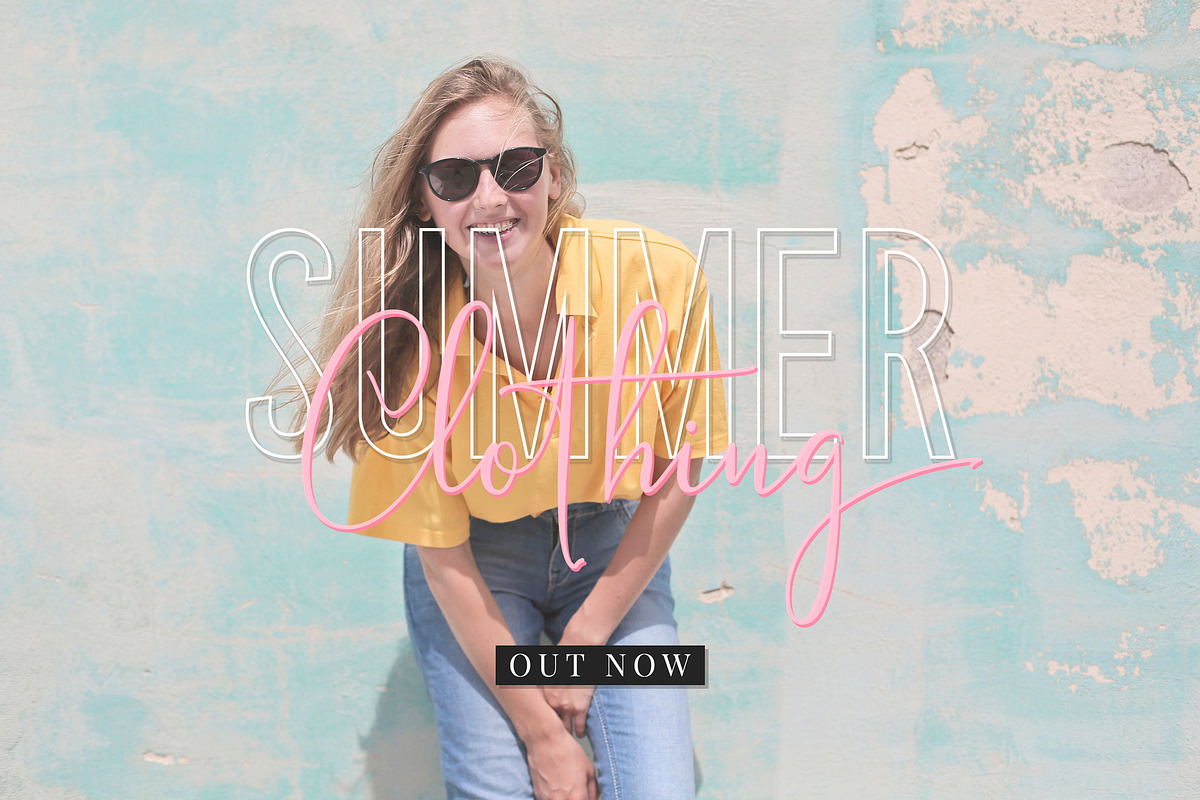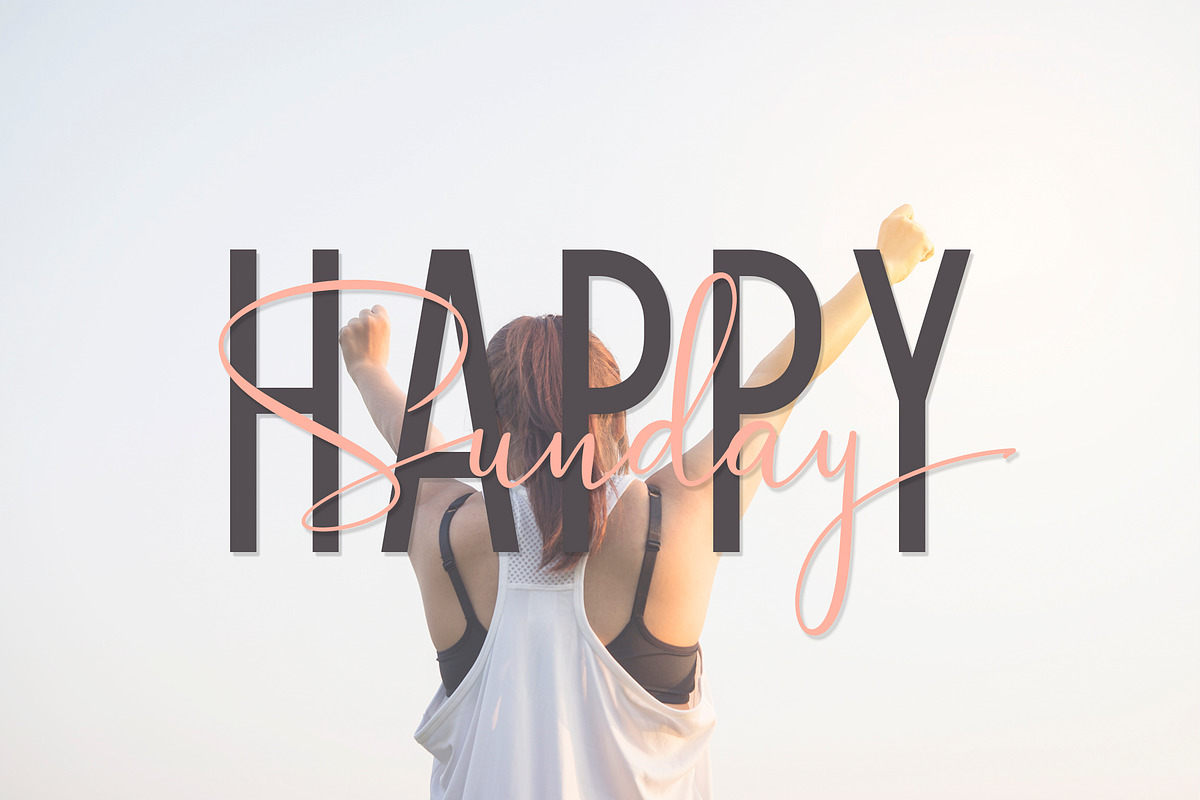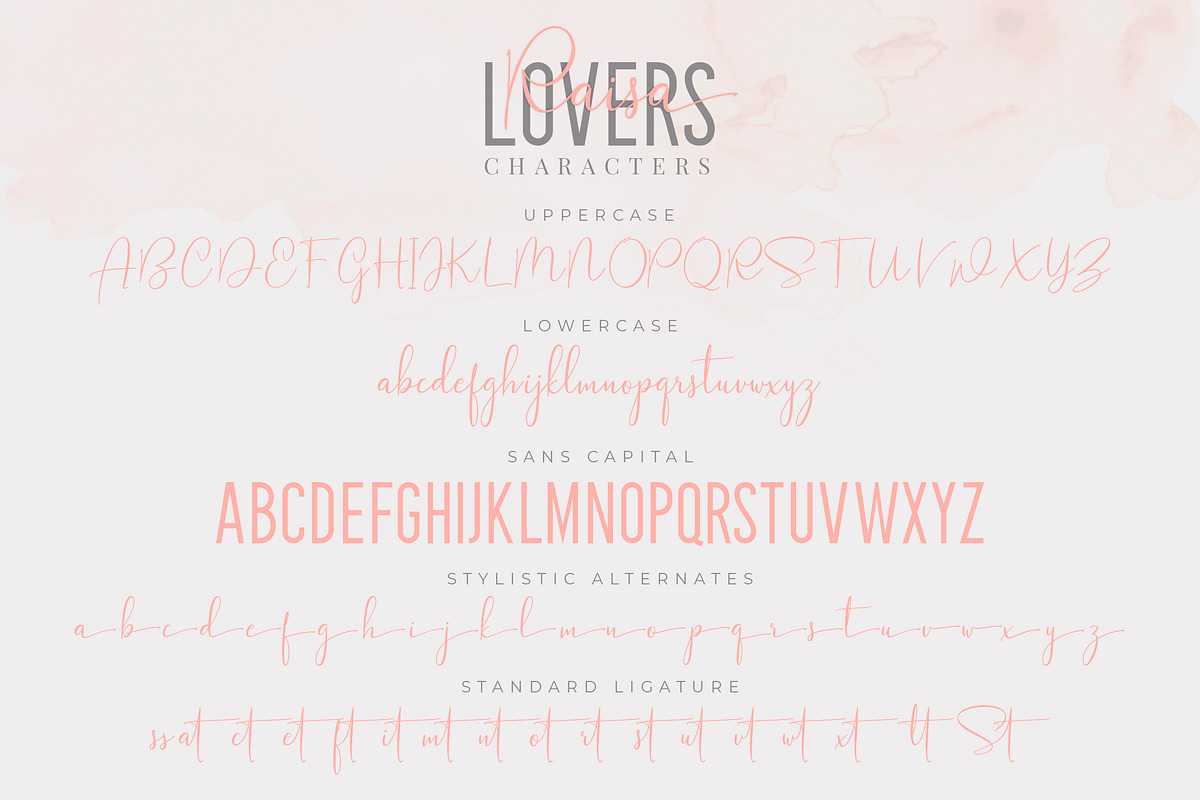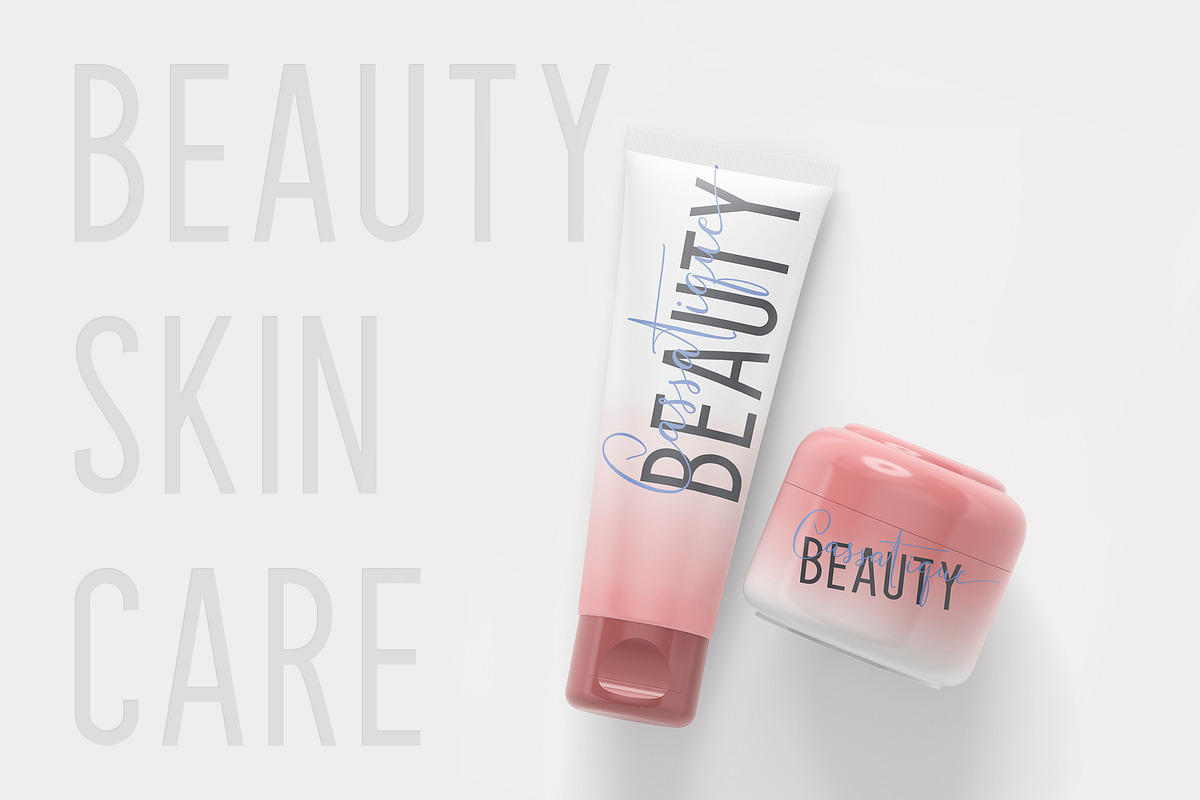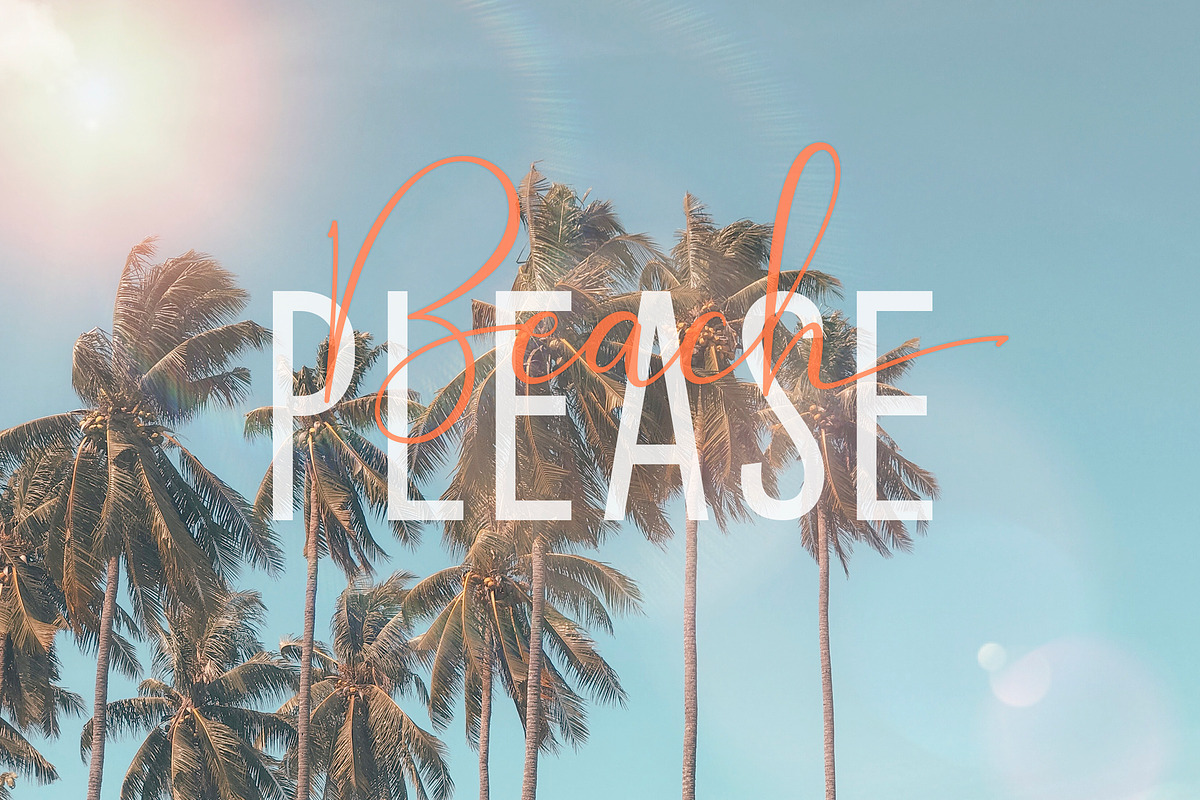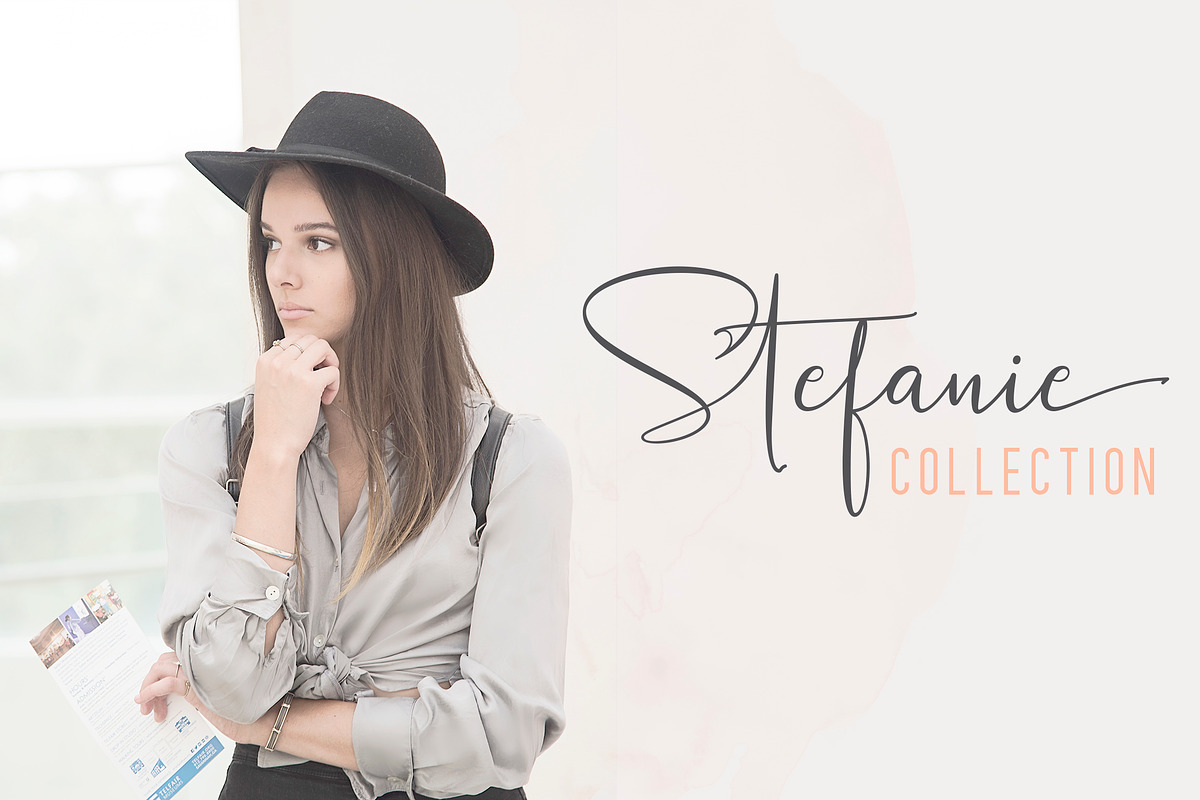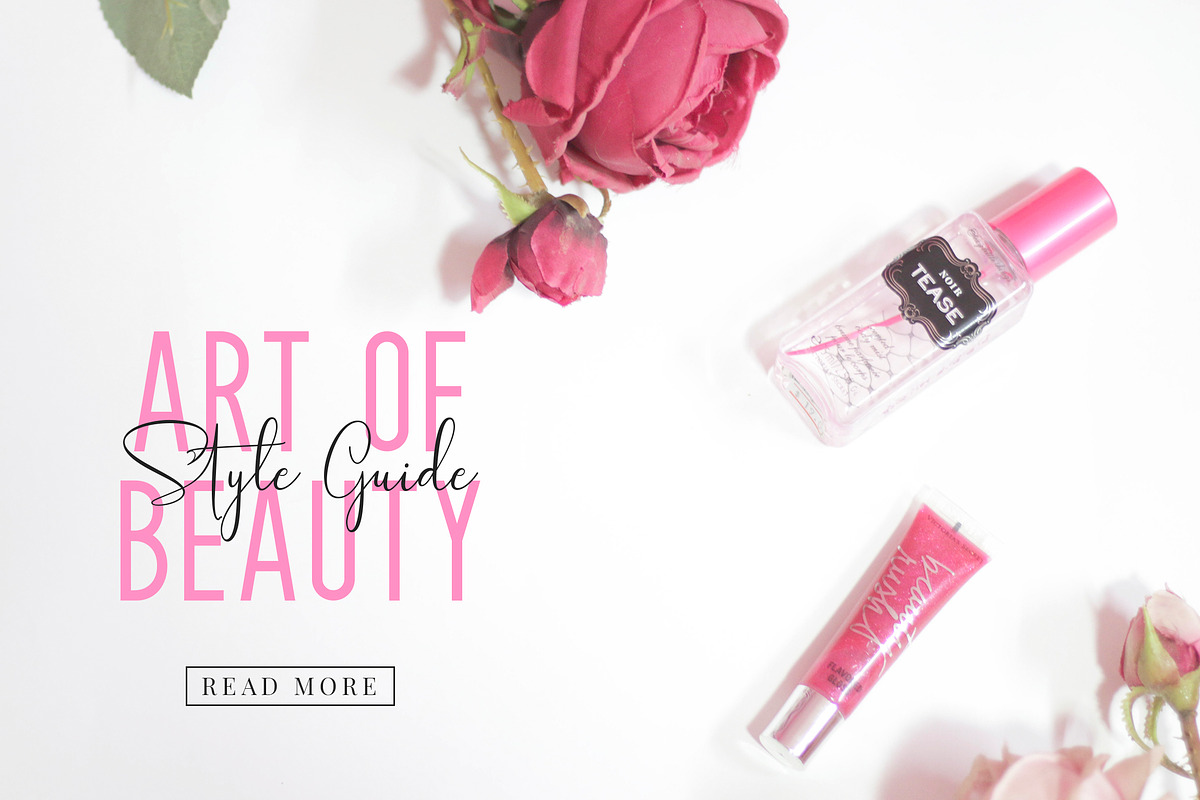
Raisa Lovers Font Duo
Raisa Lovers font is made with a very natural writing techniques that look beautiful and elegant, this font is very suitable to be used to brand a product because if we write a brand name will look like our company signature. this is perfect for bloggers, trademarks, magazines, fashion, wedding invitations, greeting cards and much more.
Raisa Lovers font have a great combination script and sans kapital fonts this is perfect if used individually or in combination with others, this font also has a lot of ligature and will automatically produce a very natural writing as we write it.
Raisa Lovers Font features with :
Basic Glyphs, Numerals, Symbol and punctuation
Stylish Alternates ( SALT )
Multilingual Support ( ALL EUROPE LANGUANGE )
Raisa Lovers Font Duo by AQR Studio fits naturally into Branding, posters, packaging, typography.